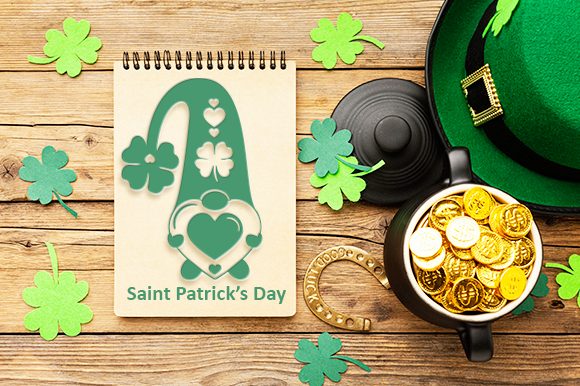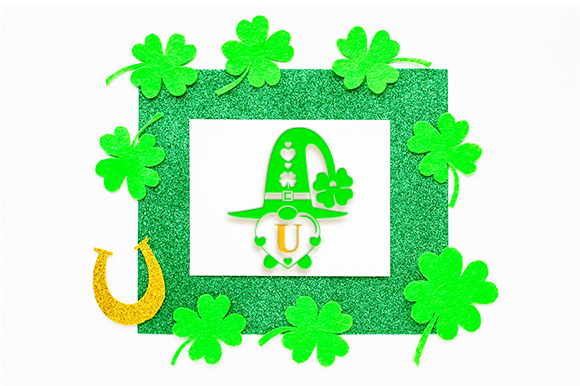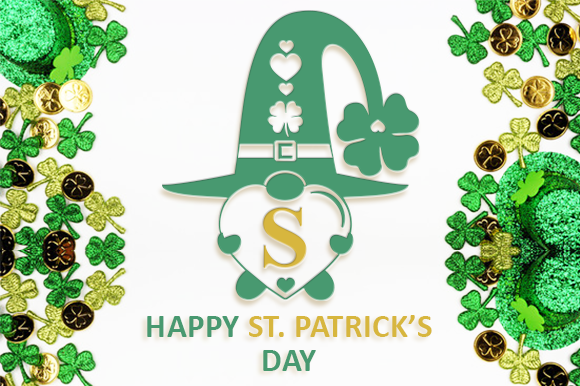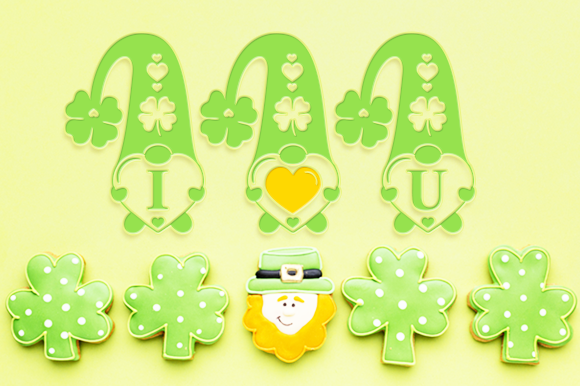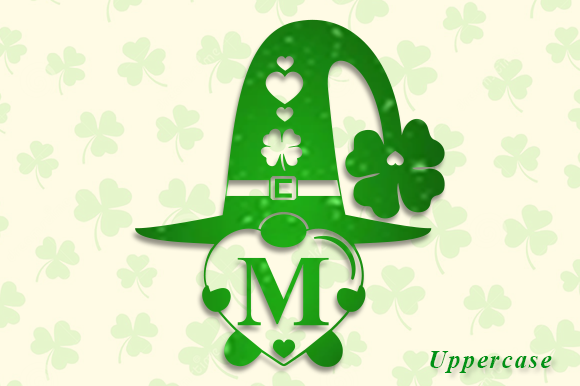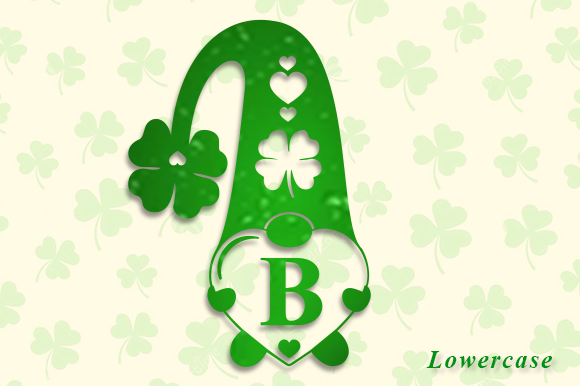
Cute Gnome Monogram Font: Add a Touch of Whimsy to Your Designs
Are you a designer or crafter looking for a unique and charming font to add a personal touch to your creations? Look no further than the Cute Gnome Monogram Font! This refined decorative font features charming ornaments that will make your designs stand out. With its genuine feel, you can use it to create a wide range of projects, from ravishing wedding invitations to beautiful stationary art, eye-catching social media posts, and cute greeting cards.
What Makes Cute Gnome Monogram Font So Special?
The Cute Gnome Monogram Font is a one-of-a-kind decorative font that is sure to capture the hearts of designers and crafters alike. Its charming ornaments and genuine feel make it perfect for adding a touch of whimsy to any design. Whether you’re creating wedding invitations, social media posts, or greeting cards, this font is sure to make your designs stand out.
Features of Cute Gnome Monogram Font
- Refined Decorative Font: The Cute Gnome Monogram Font is a beautifully designed decorative font that features charming ornaments and a genuine feel.
- Charming Ornaments: The font features a range of charming ornaments that can be used to add a personal touch to your designs.
- Genuine Feel: The font has a genuine feel that makes it perfect for creating designs that look like they were created by hand.
- Versatile: The Cute Gnome Monogram Font can be used to create a wide range of projects, from wedding invitations to social media posts.
Uses for Cute Gnome Monogram Font
The Cute Gnome Monogram Font is a versatile font that can be used for a wide range of projects. Here are some ideas to get you started:
- Wedding Invitations: Use the Cute Gnome Monogram Font to create ravishing wedding invitations that will set the tone for the big day.
- Stationary Art: Create beautiful stationary art, such as notecards, journals, and planners, using the Cute Gnome Monogram Font.
- Social Media Posts: Use the font to create eye-catching social media posts that will grab the attention of your followers.
- Greeting Cards: Create cute greeting cards for special occasions, such as birthdays, holidays, and anniversaries.
Tips for Using Cute Gnome Monogram Font
Here are some tips for using the Cute Gnome Monogram Font:
- Experiment with Different Sizes: Experiment with different font sizes to find the perfect size for your design.
- Pair with Other Fonts: Pair the Cute Gnome Monogram Font with other fonts to create a unique and interesting design.
- Use with Images: Use the font with images to create a visually appealing design.
- Don’t Be Afraid to Get Creative: Don’t be afraid to get creative and try new things with the Cute Gnome Monogram Font.
The Cute Gnome Monogram Font is a unique and charming font that is perfect for designers and crafters looking to add a personal touch to their creations. With its refined decorative design, charming ornaments, and genuine feel, this font is sure to make your designs stand out. Whether you’re creating wedding invitations, social media posts, or greeting cards, the Cute Gnome Monogram Font is a great choice.